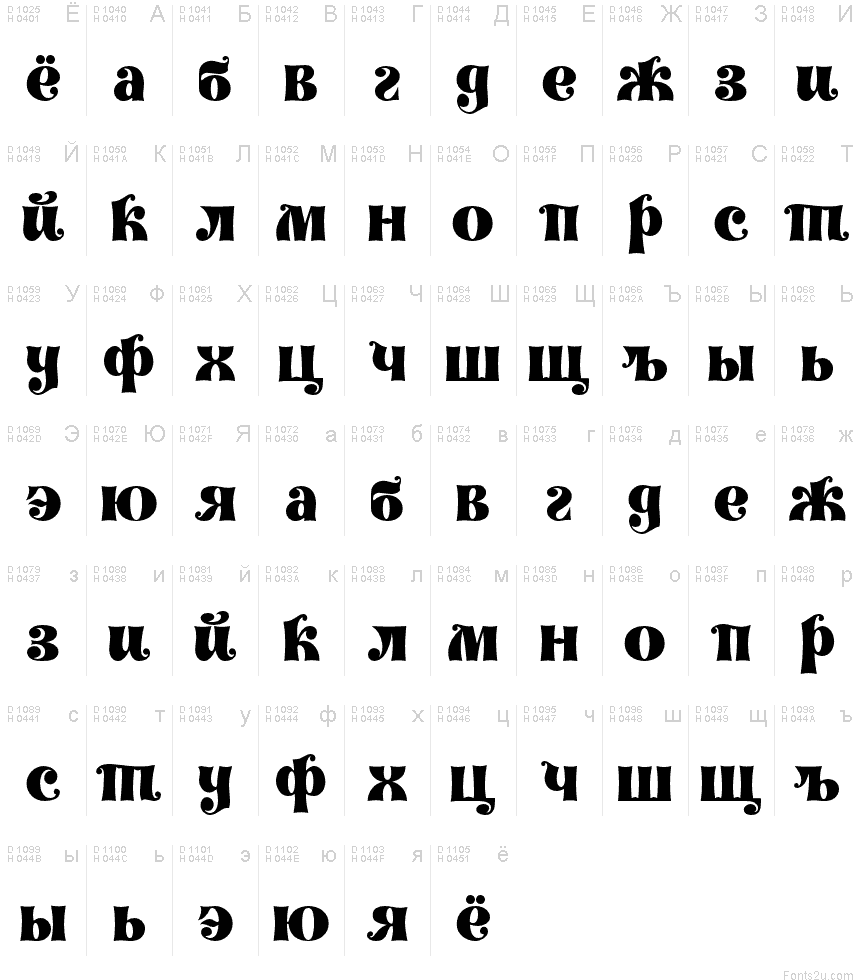
Decorlz by Leonid Zorin is a free Russian-style display font with broad theatrical forms and abrupt changes in stroke width. Its rounded letters swell into near-circular shapes, offset by hairline joins and small curled details. The result feels ornamental and slightly eccentric.
In publishing, it suits cover lettering and cultural features with a theatrical slant. The exaggerated curves can shape poster titles, festival graphics, and packaging with an Eastern European reference. Its most likely audience is designers seeking expressive Cyrillic-inspired lettering rather than a restrained text face.